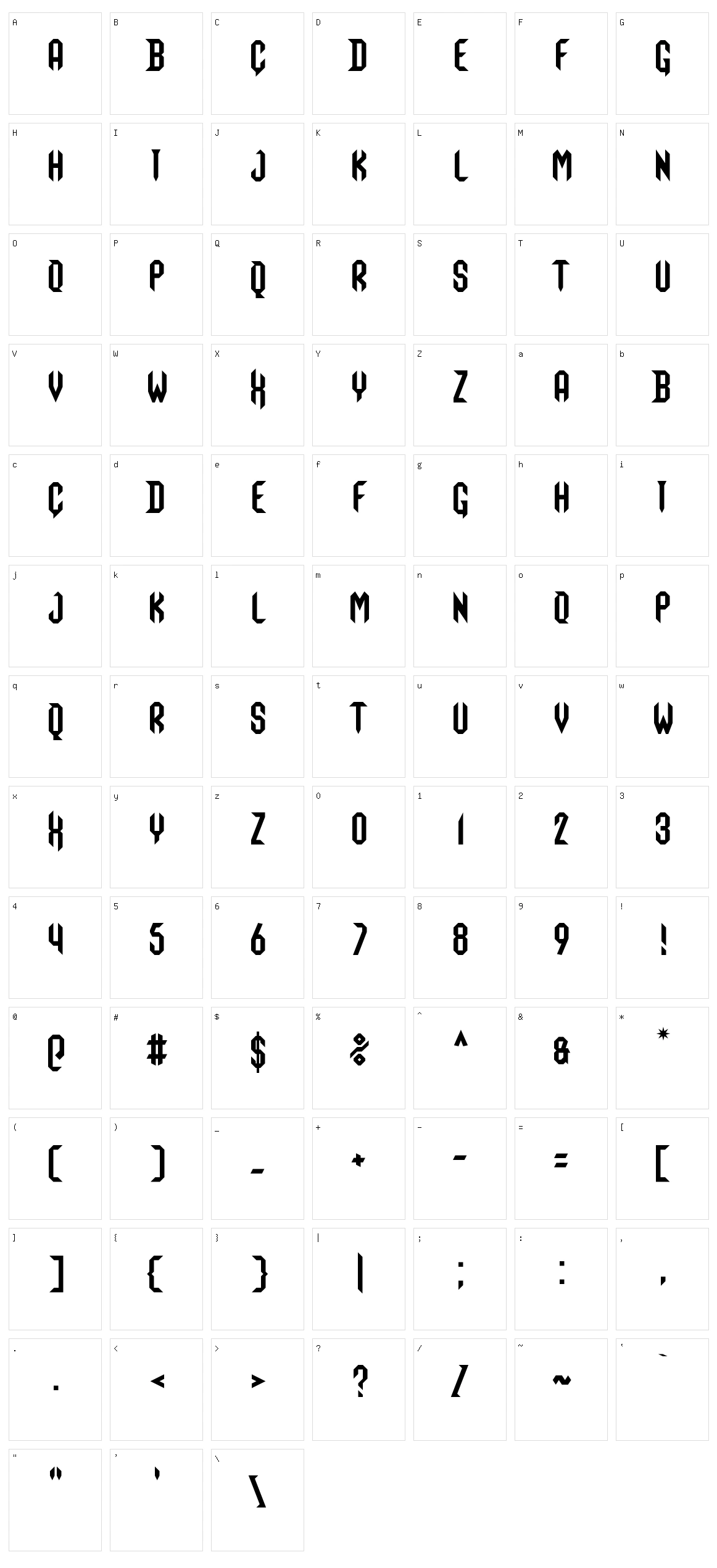
Grimoire Of Death
Designed by: GGBotNet
Description: The free font Grimoire Of Death is carefully designed by GGBotNet, showcasing a thoughtful balance of creativity and usability and belongs to the Gothic font family. When you download the ZIP file, it contains only 26.32 KB of font files, making it lightweight and quick to download. Please review the license details below to understand permitted usage and distribution rights. If license information is not available, we recommend using this font for personal projects only or contacting the author directly for commercial usage permissions.